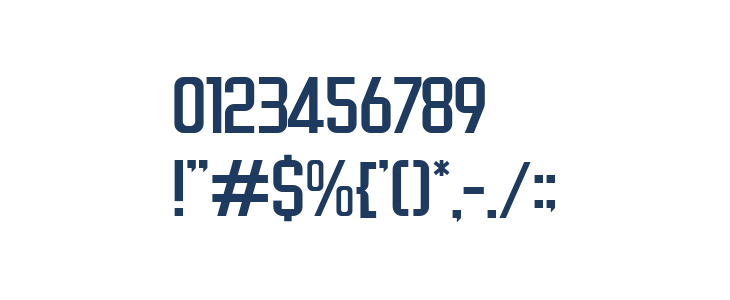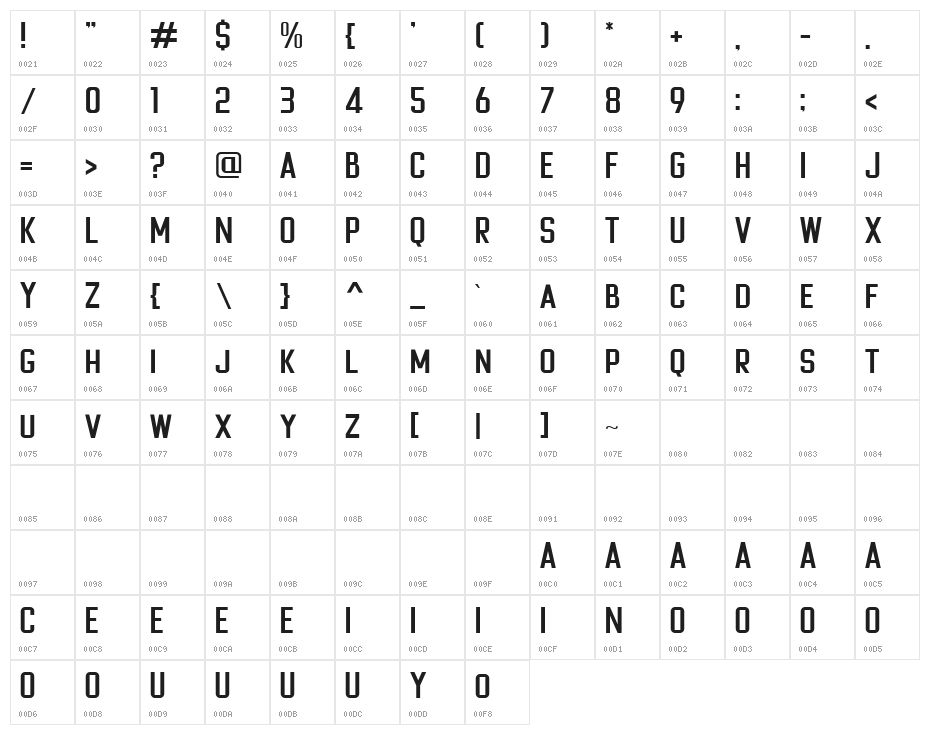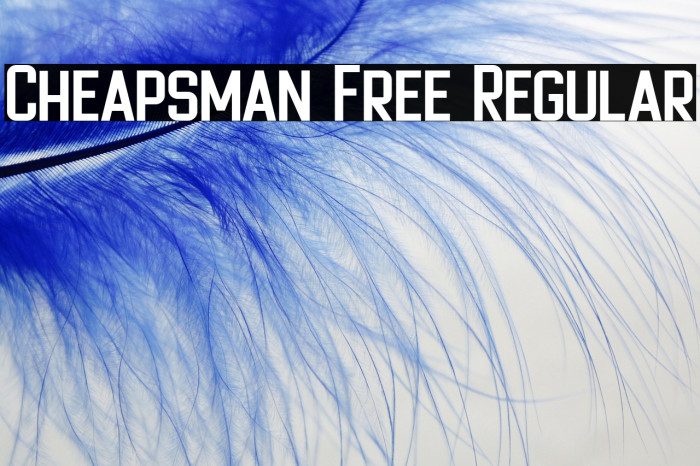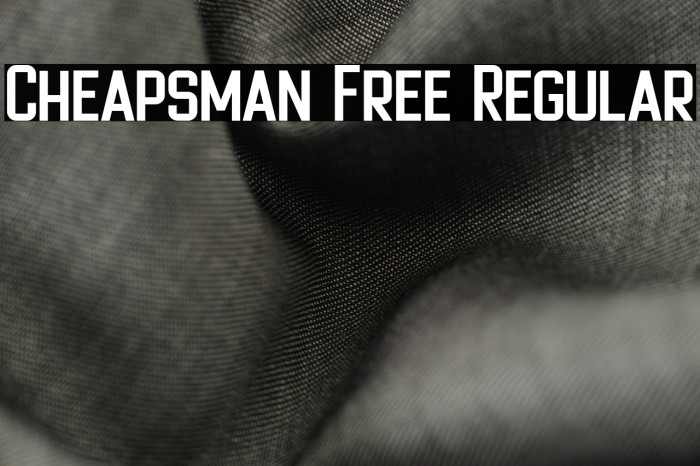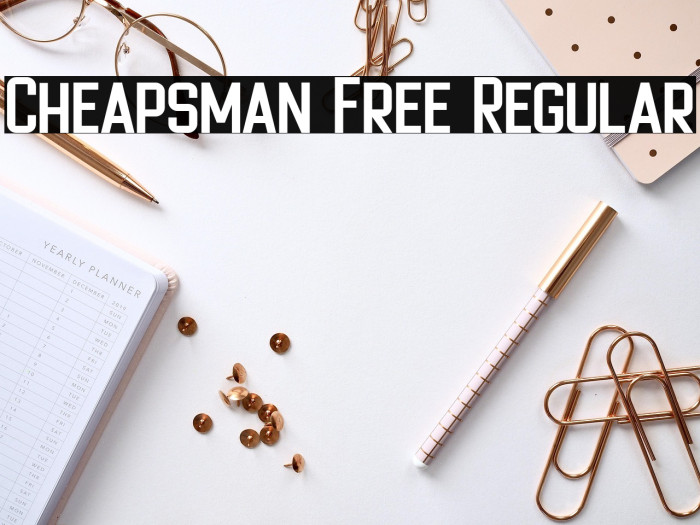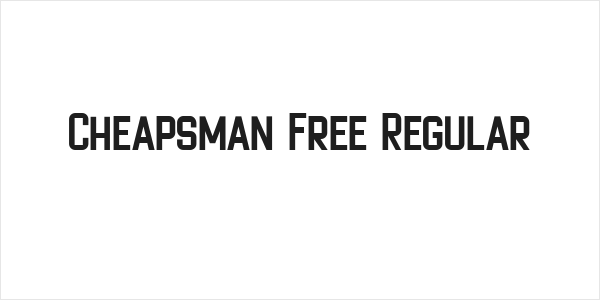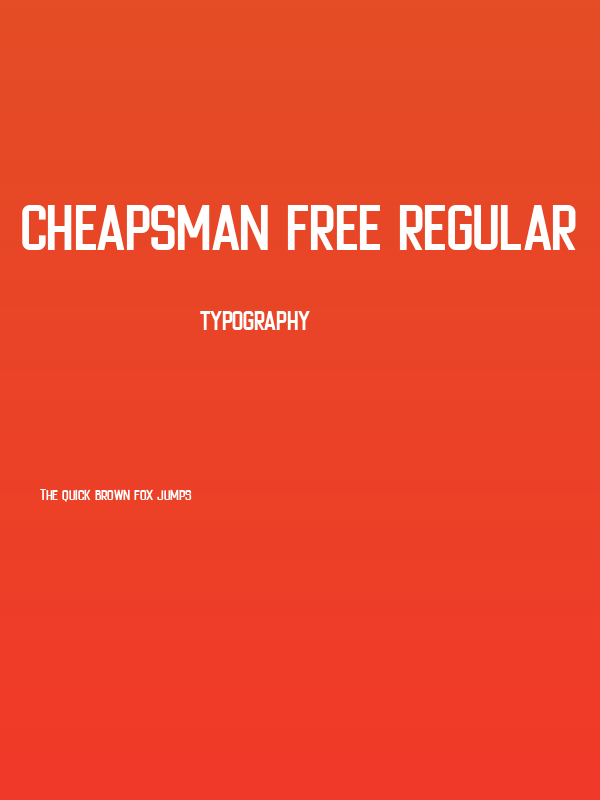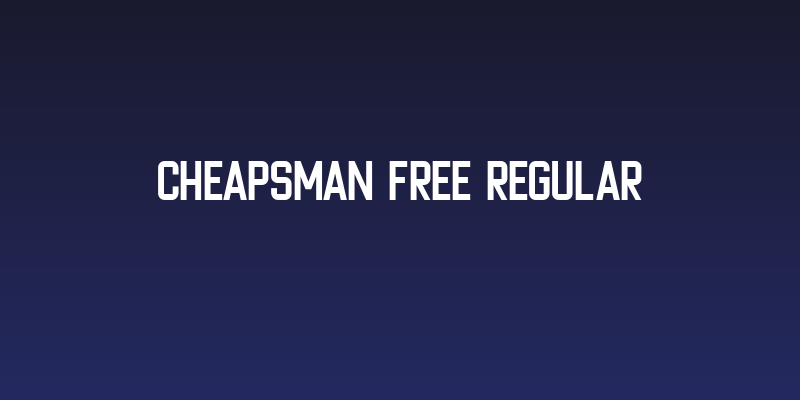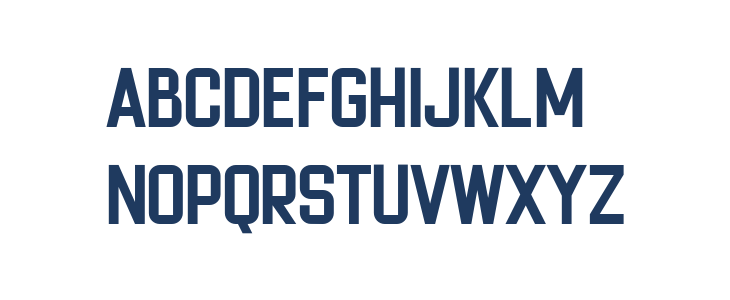
Cheapsman Free Regular Font
Cheapsman Free Regular Description
This font features a bold and geometric design with strong, clean lines and a modern aesthetic. The uppercase and lowercase letters are uniformly structured, providing a sense of balance and stability. The numerals and special characters maintain the same boldness, ensuring consistency across all text. The overall appearance is striking and impactful, making it suitable for attention-grabbing headlines and titles. The font's design is straightforward yet effective, with a focus on readability and clarity.